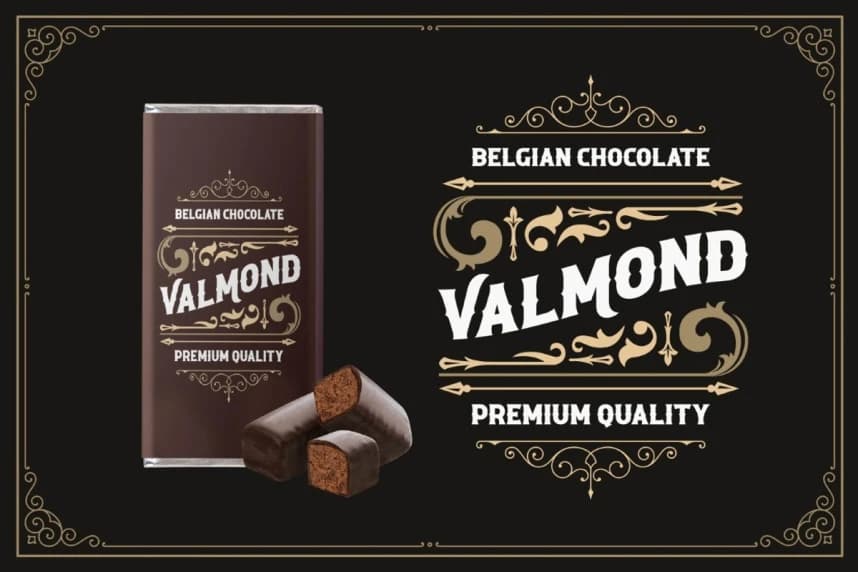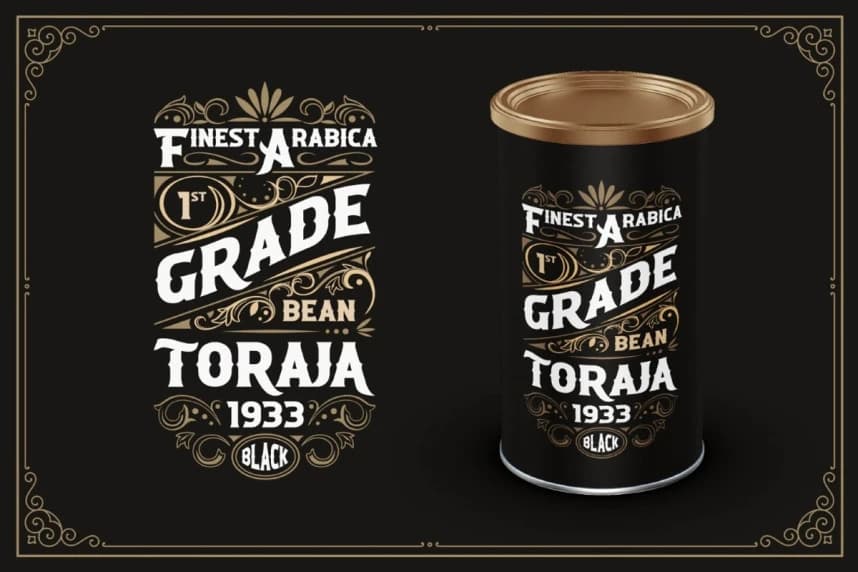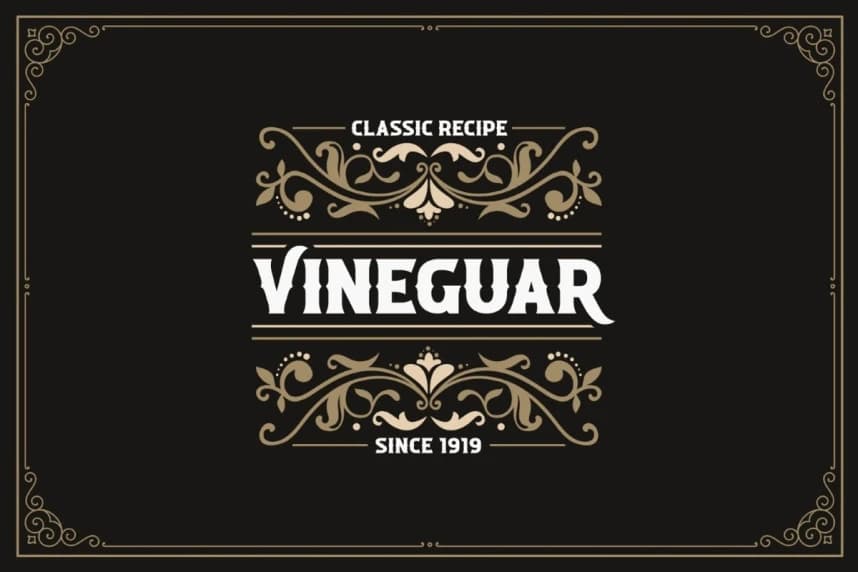
Roadstore Font
ROADSTORE Font A unique Fonts with vintage taste can make your logotype become more interesting. Best Vintage font with special alternative glyphs, and multilingual support. inspired by the decorative arts and architecture movement